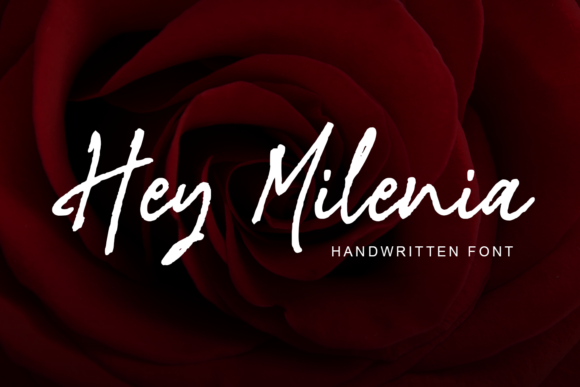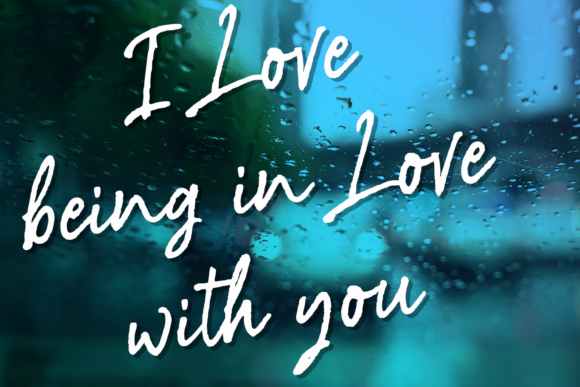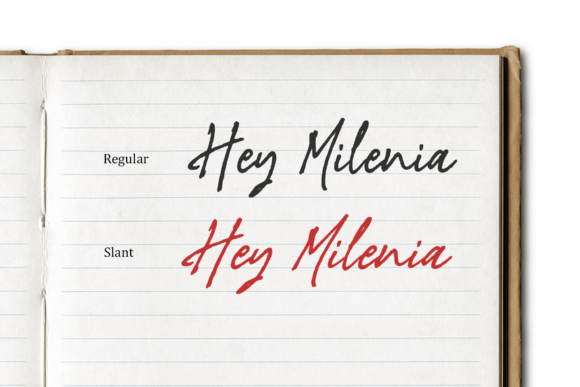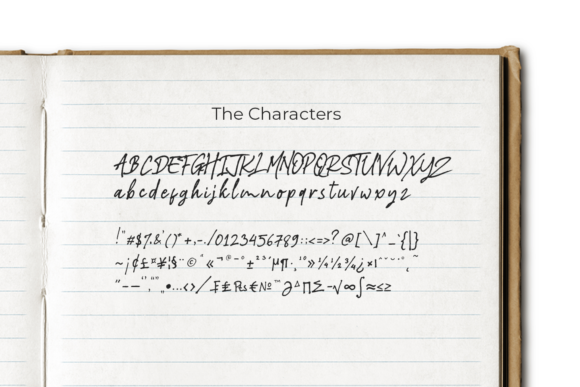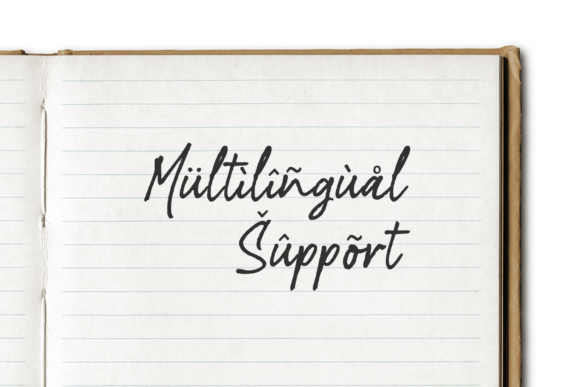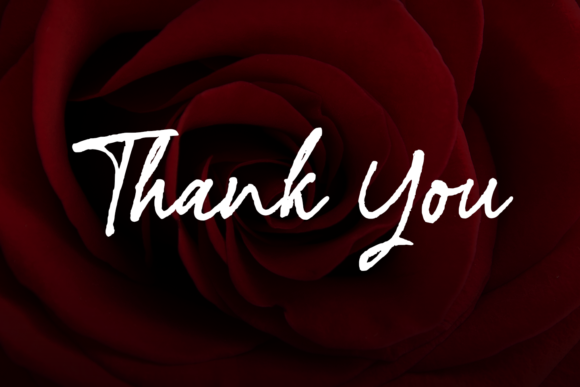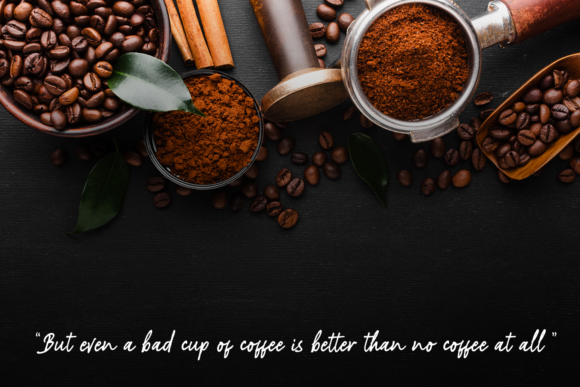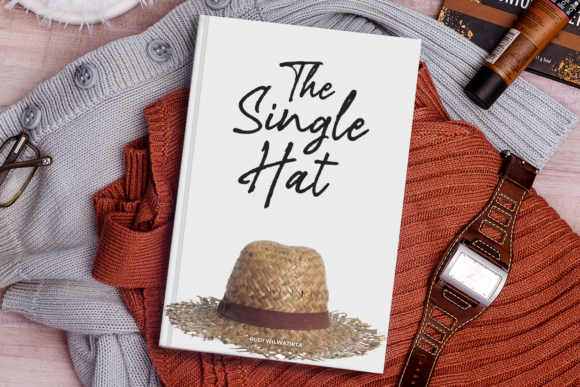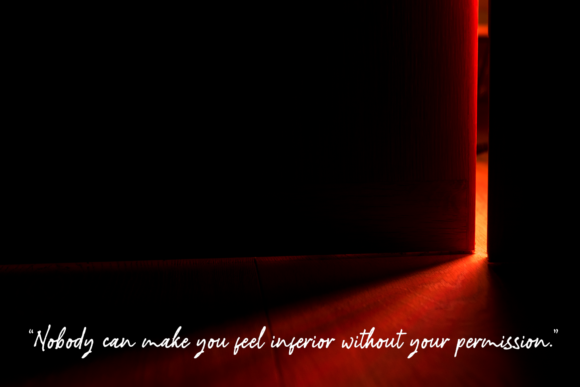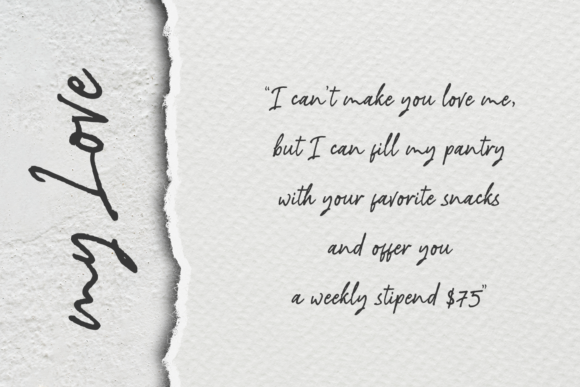
Hey Milenia Font
About Hey Milenia Font
Hey Milenia is a gorgeous and authentic script font that radiates style. It will take any design project to the next level.